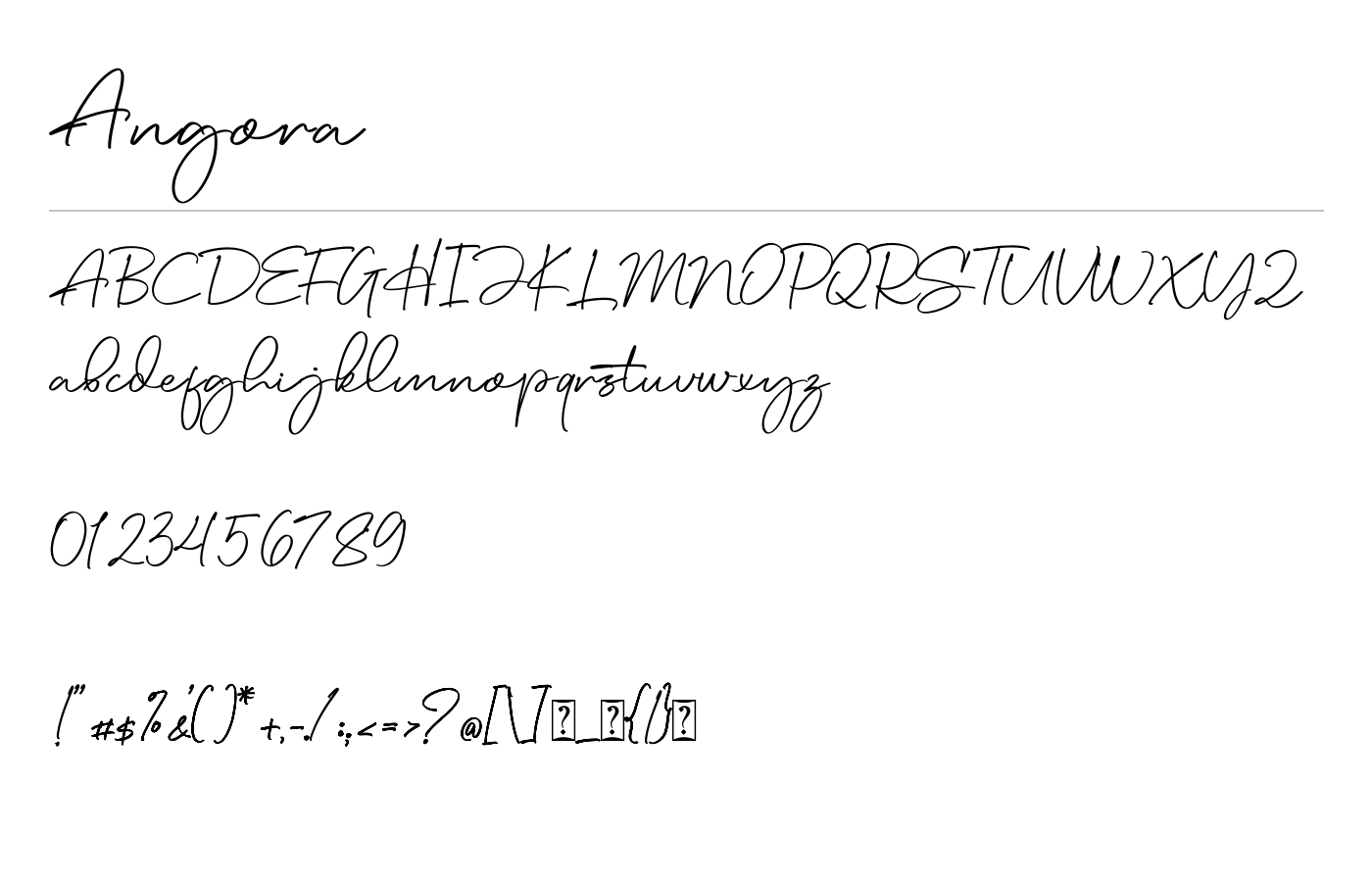
Angora is a delicate, handwritten script font that features a light, airy feel with elegant, flowing letterforms. Its tall x-height and fluid strokes give it a graceful, personal touch, making it perfect for invitations, branding, and projects that seek a sophisticated yet approachable style. This font shines in uses where a stylish, feminine, and friendly signature look is desired.
Angora Font